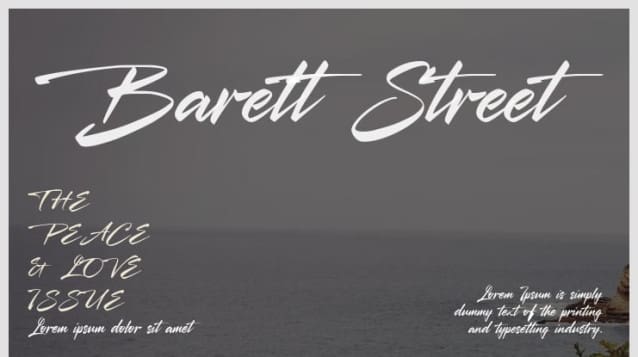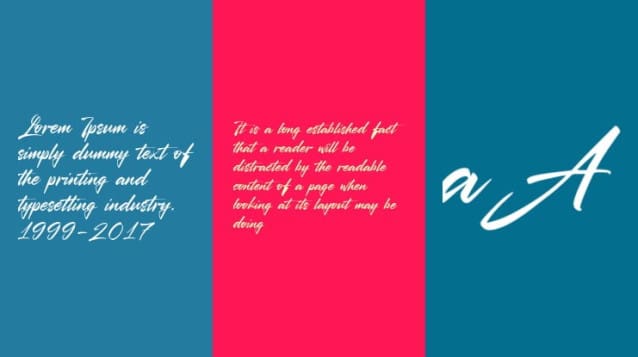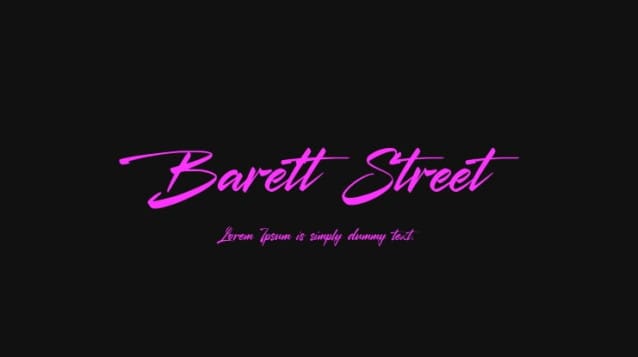
Barett Street Font
Barett Street Font,  Ideal for logos, handwritten quotes, product packaging, header, poster, merchandise, social media & greeting cards.